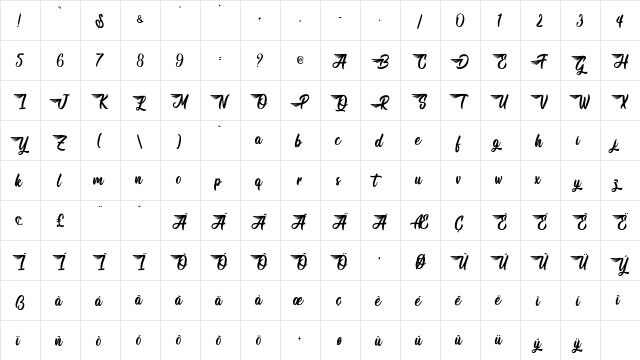
Mocking Bird - Personal Use Regular
| Foundry | Typhoon Type - Suthi Srisopha |
| Designer | Typhoon Type - Suthi Srisopha |
Design Context for Mocking Bird - Personal Use Typeface
Mocking Bird - Personal Use is a composed and adaptable typeface that performs quietly and consistently across a wide range of design contexts.